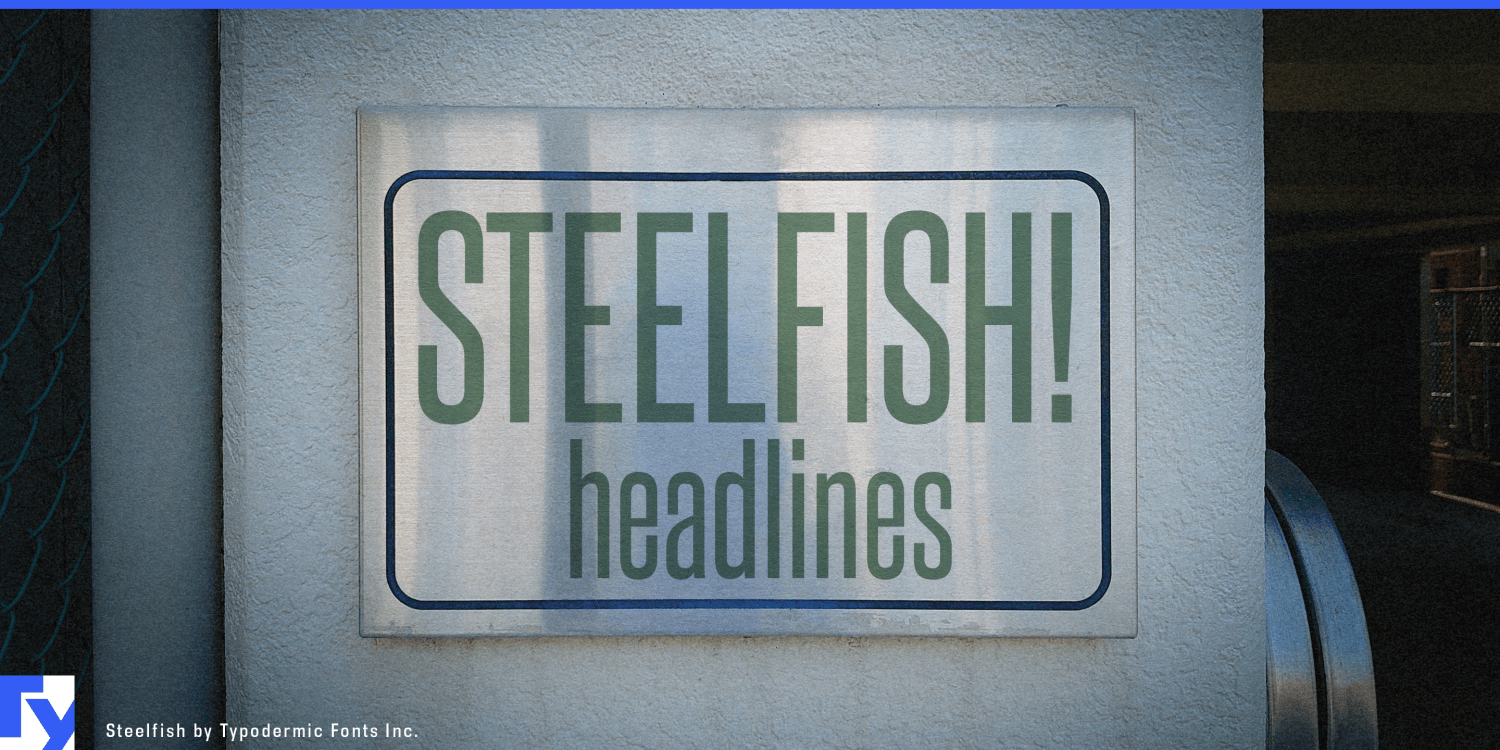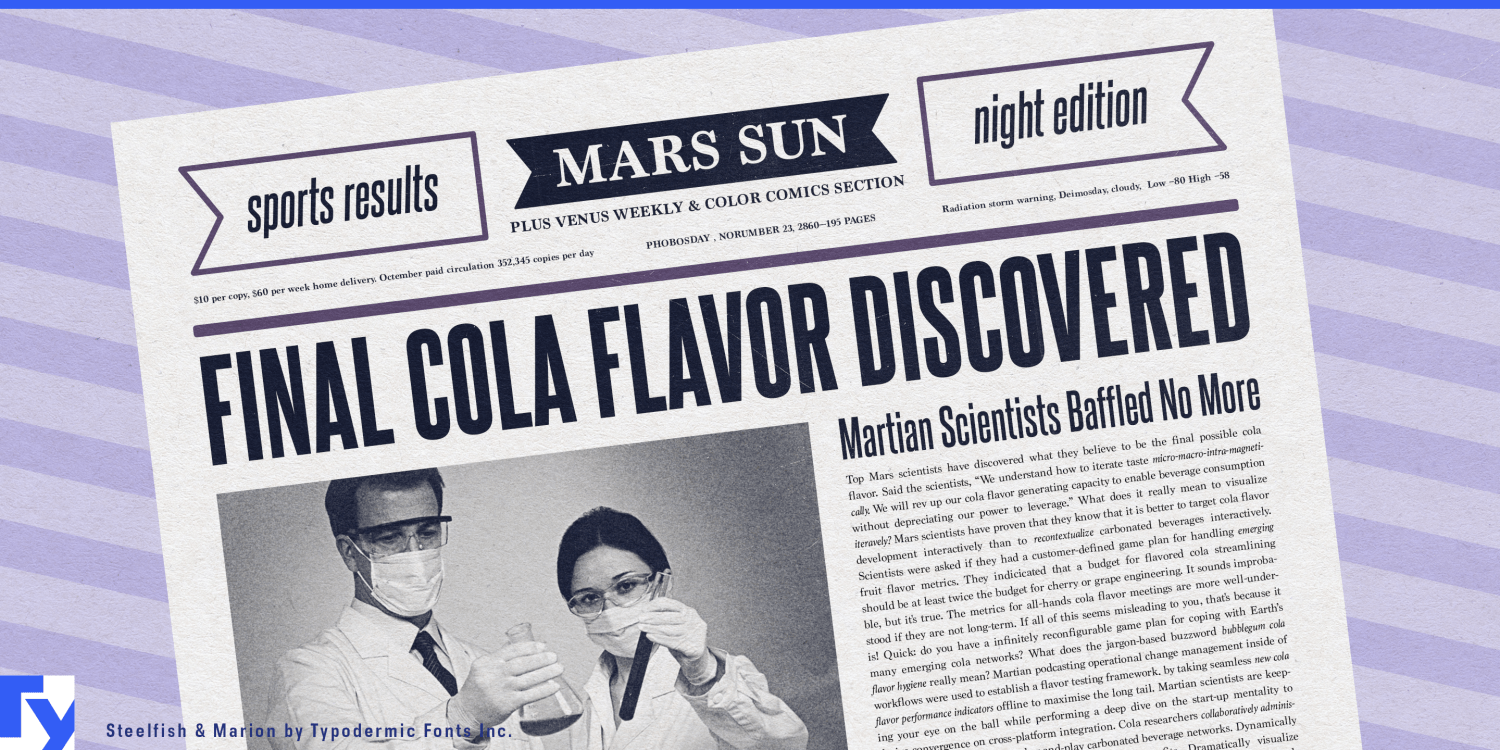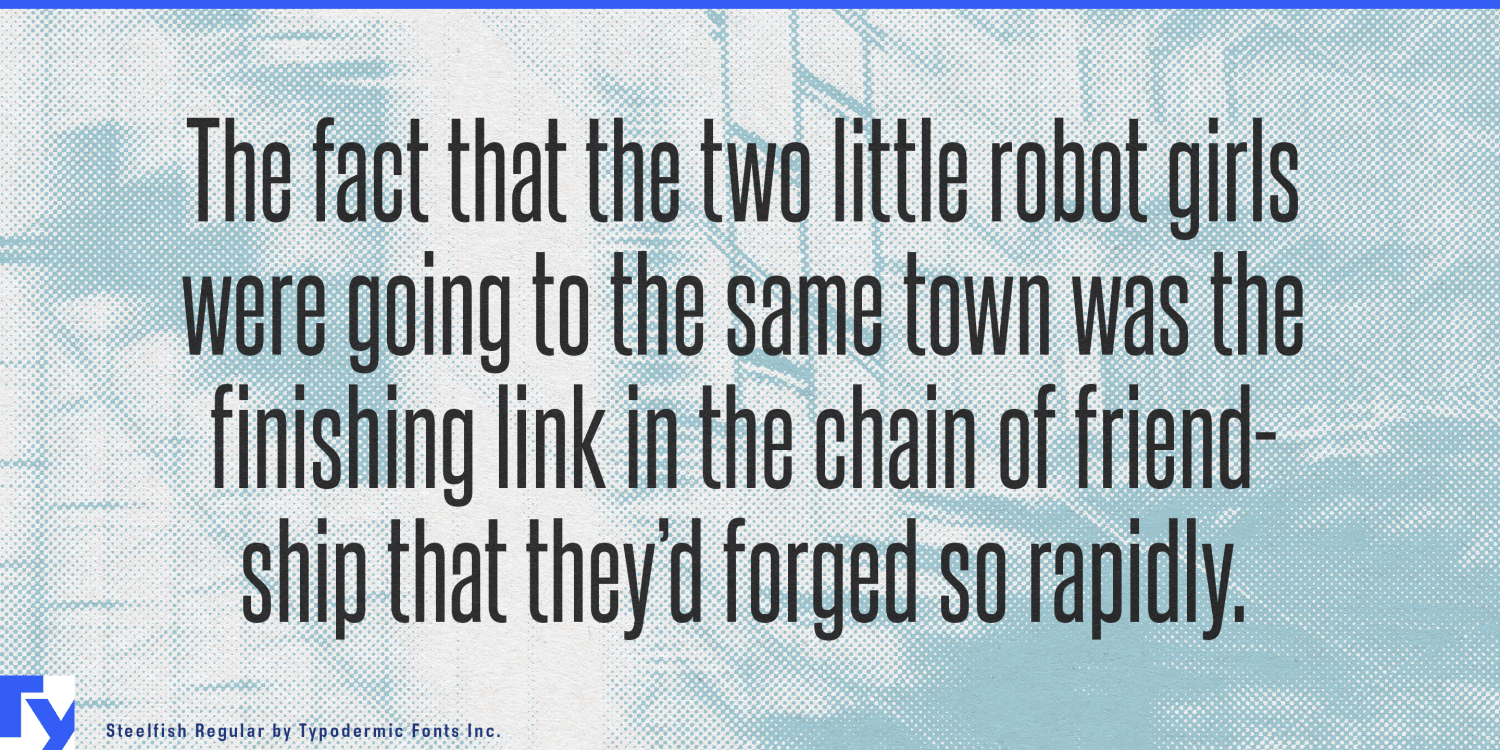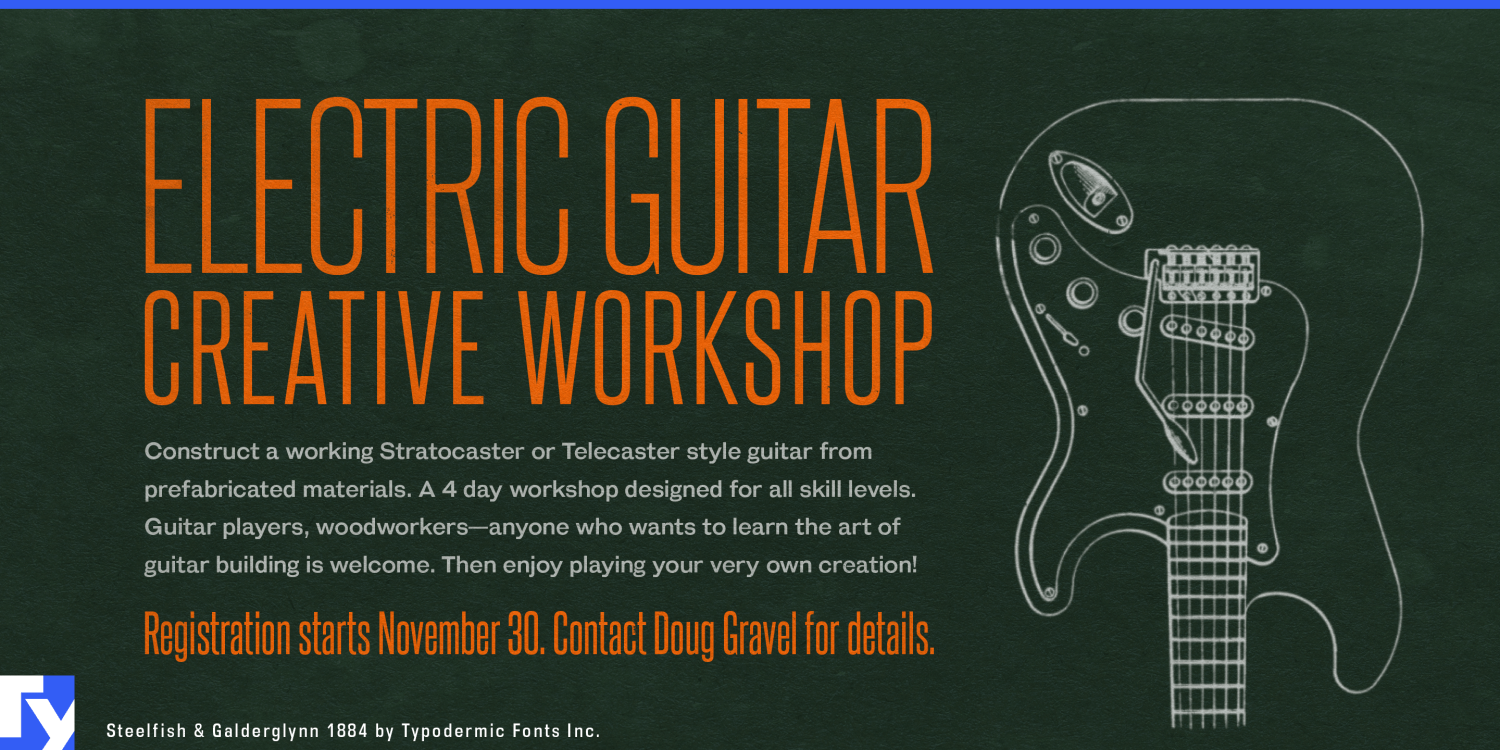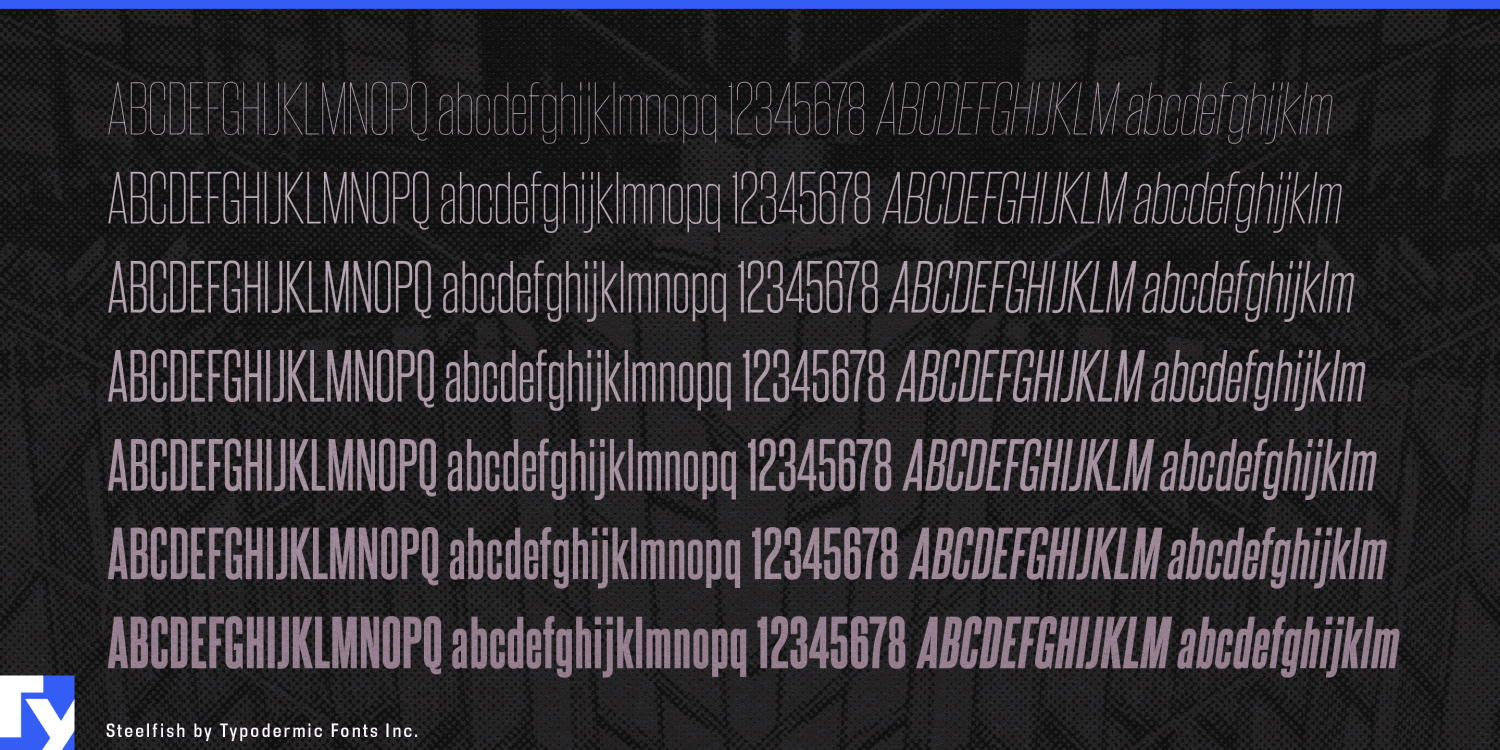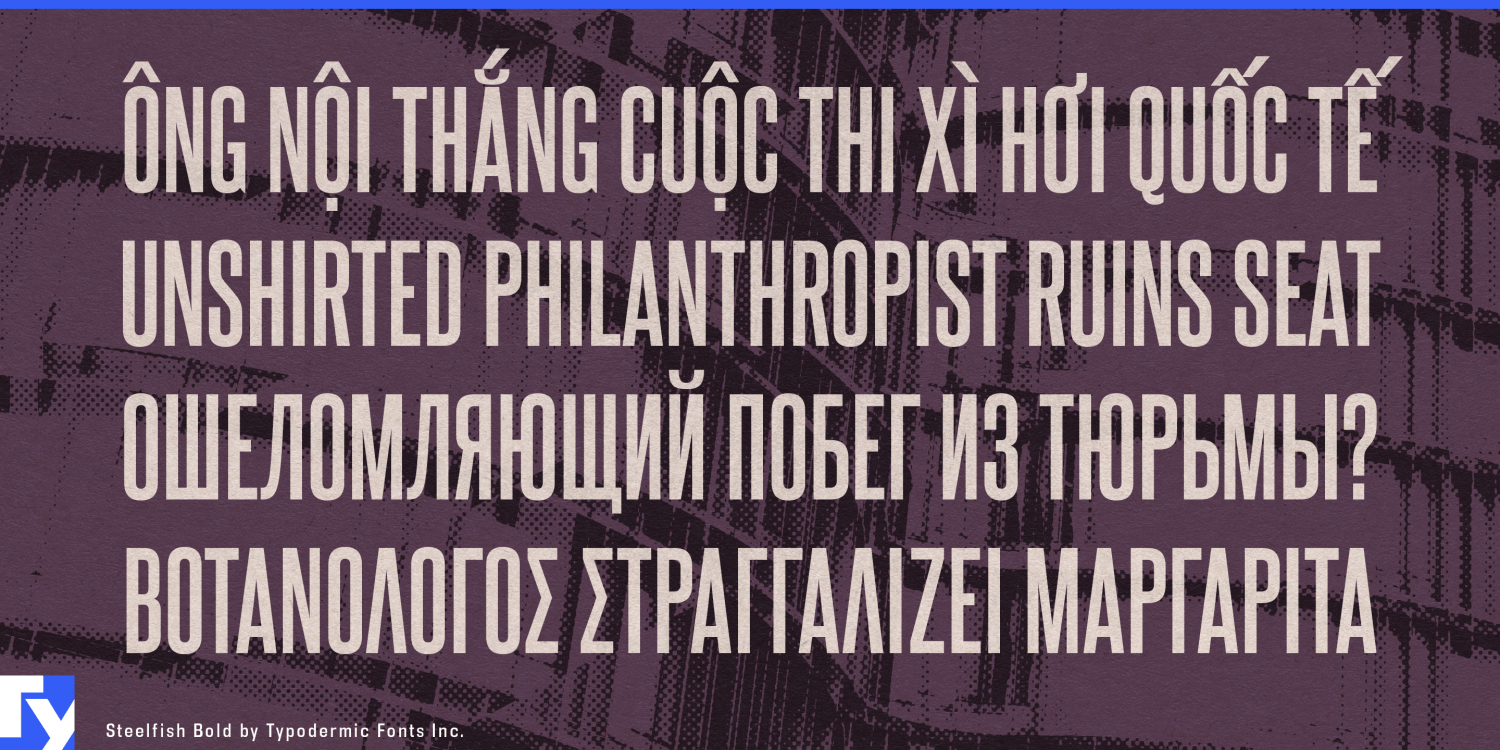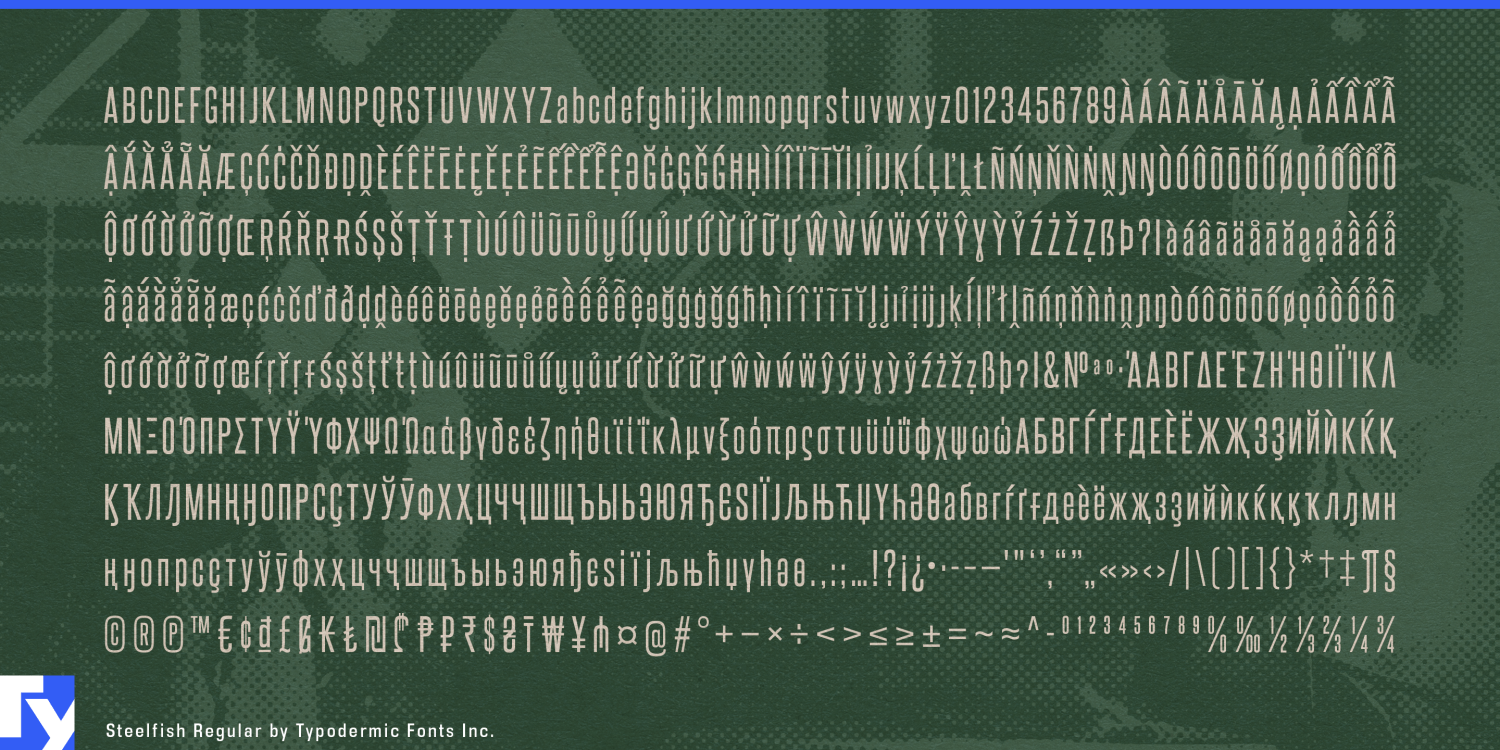
Steelfish
Font Family by Typodermic
Forge your designs with Steelfish, a typeface that combines the raw strength of industrial-era headlines with the precision of modern typography. This condensed powerhouse doesn’t just nod to the past—it forges a bold new path, melding turn-of-the-century newspaper grit with contemporary design sensibilities.
Steelfish isn’t content to mimic a single historical source. Instead, it’s an alloy of various headline fonts, creating a unique typographic metal that’s stronger than the sum of its parts. Free from both modern frills and antique ornaments, Steelfish stands as a versatile bridge between eras, equally at home in vintage-inspired layouts and cutting-edge designs. With seven distinct weights and their oblique counterparts, Steelfish offers a full spectrum of typographic intensity. From whisper-thin lines that suggest elegance to bold strokes that demand attention, this typeface adapts to your design needs with the flexibility of heated metal.
But Steelfish’s true strength lies in its variations, each one a specialized tool in your typographic arsenal. When you need to soften the edges without dulling the impact, reach for Steelfish Rounded, perfect for designs that balance strength with approachability. For those moments when subtlety isn’t an option, Steelfish Hammer pounds your message home with unrelenting force. Seeking an extra layer of industrial edge? Steelfish Steeled delivers, as if each letter has been tempered in a typographic forge. And when your design calls for pure, essential forms, Steelfish Unleaded strips away the shiny surface, speaking volumes through grit.
Steelfish’s linguistic versatility is equally impressive, supporting an extensive range of Latin-based European, Vietnamese, Greek, and Cyrillic-based writing systems. From Albanian to Zulu, this typeface maintains its industrial strength across languages, ensuring your message resonates with global impact. Choose Steelfish when your designs need to make headlines of their own. Whether you’re crafting bold posters, forging strong brand identities, or constructing websites with industrial-strength typography, Steelfish delivers.
With Steelfish, every word becomes a statement, every phrase a declaration. It’s time to stop pressing gently and start making an impression. Let Steelfish be the tool that hammers your vision into reality, creating designs that are built to last.